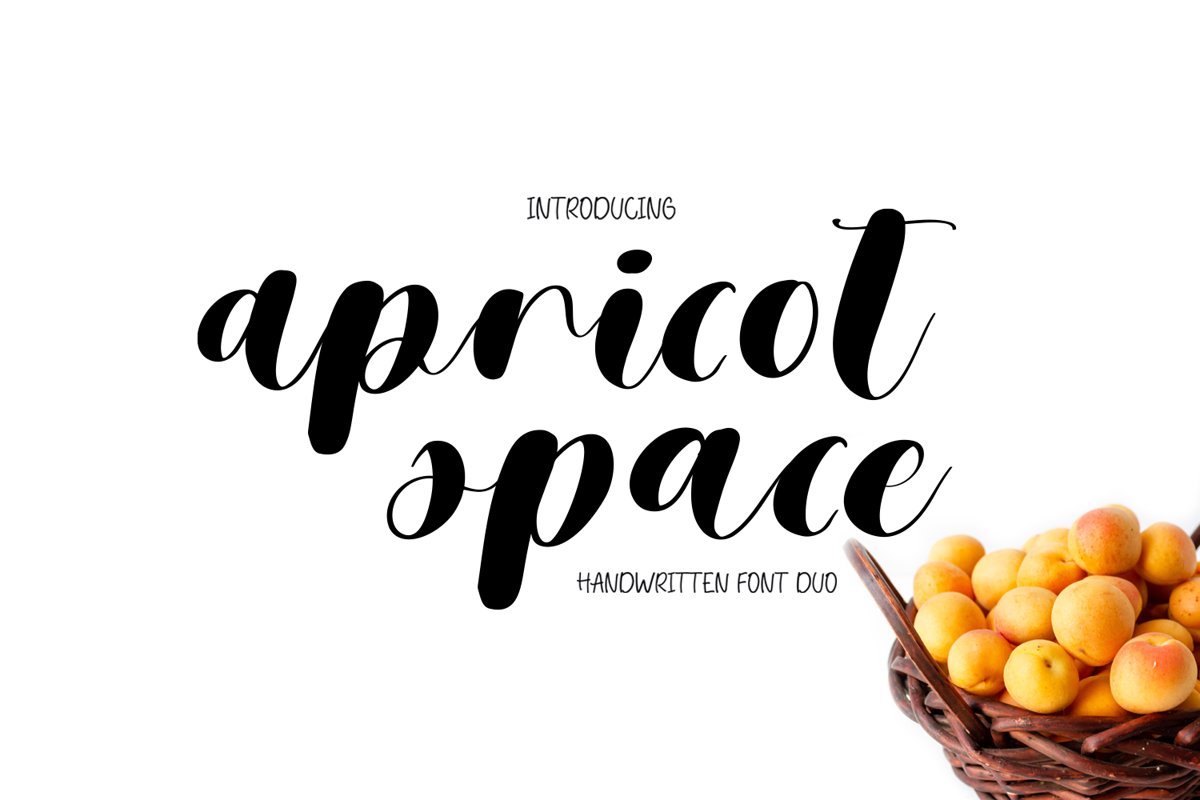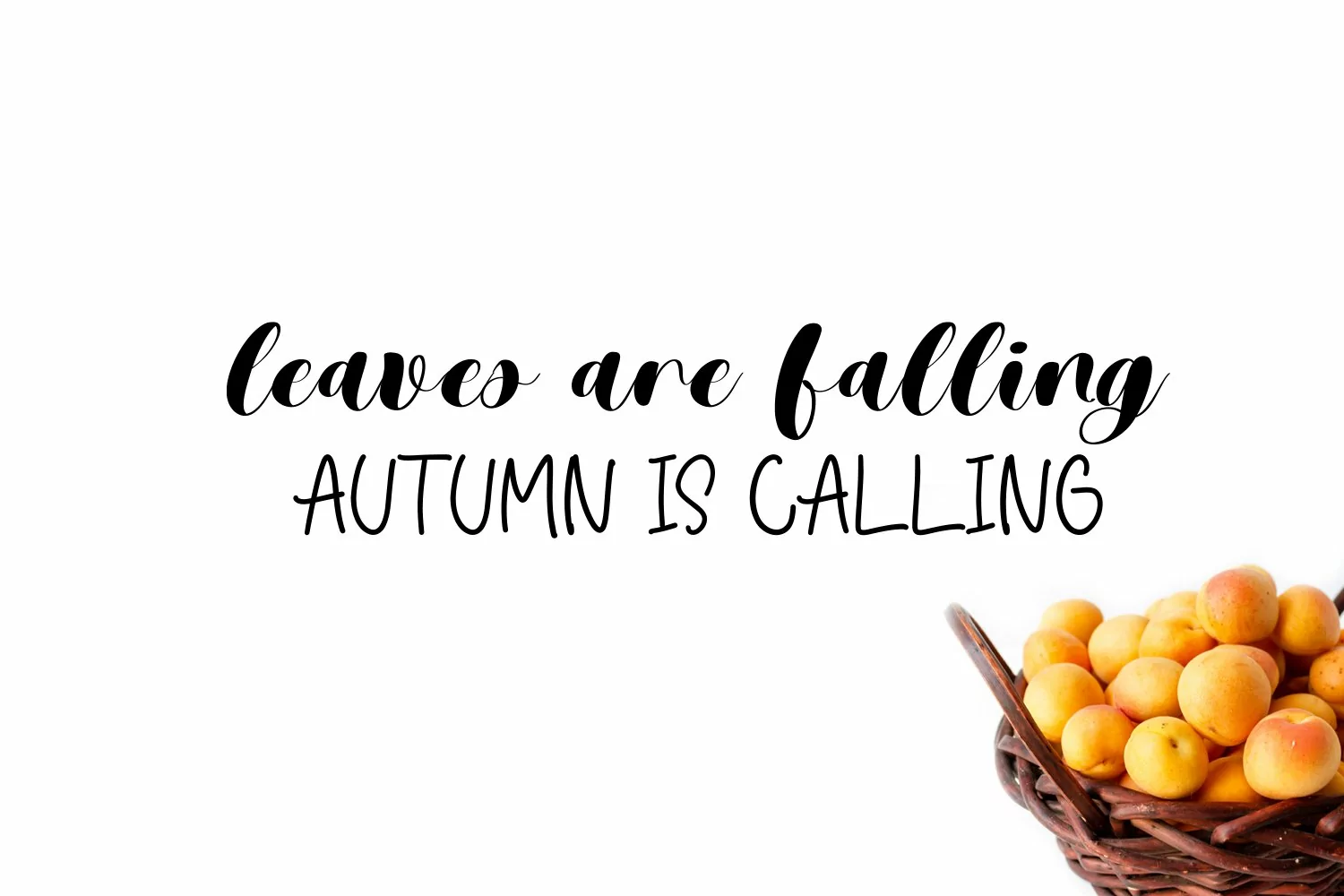
Apricot Space - it's a casual handwritten font duo
Apricot Space Sans Serif.otf - all uppercase sans serif font, numbers, punctuation
Apricot Space.otf - standart and alternate uppercase, lowercase, numbers, punctuation